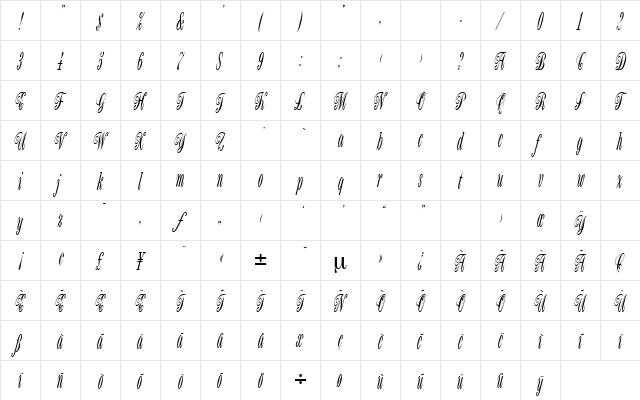
Calvados Regular
Design Context for Calvados Typeface
Calvados is a composed and adaptable typeface that performs quietly and consistently across a wide range of design contexts.